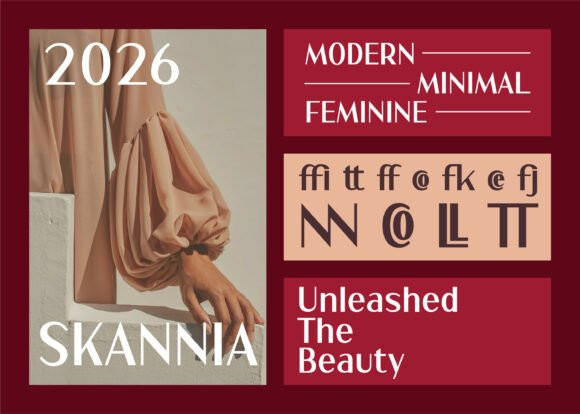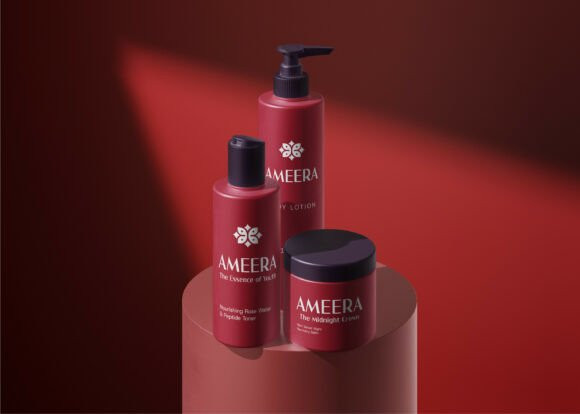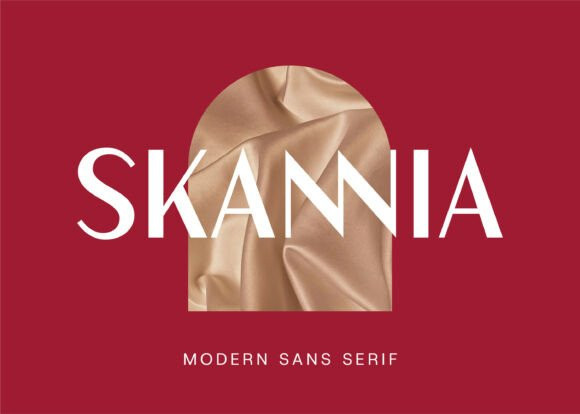
Skannia Font
Skannia Font a refined sans-serif that balances modern minimalism with a touch of classical elegance. Its elongated letterforms and high-contrast strokes create a rhythmic, high-fashion aesthetic that feels both airy and authoritative. Designed for those who appreciate clean lines with a high-end editorial flair, Skannia is perfect for luxury branding, chic social media layouts, and minimalist digital products.